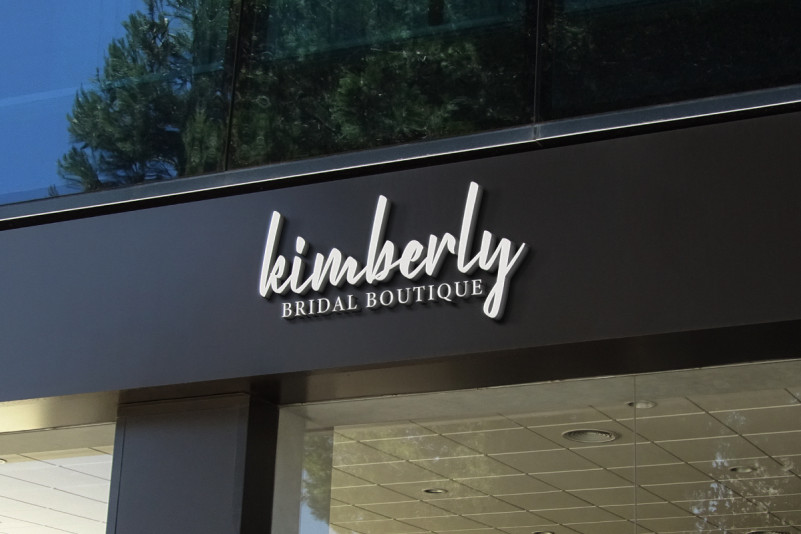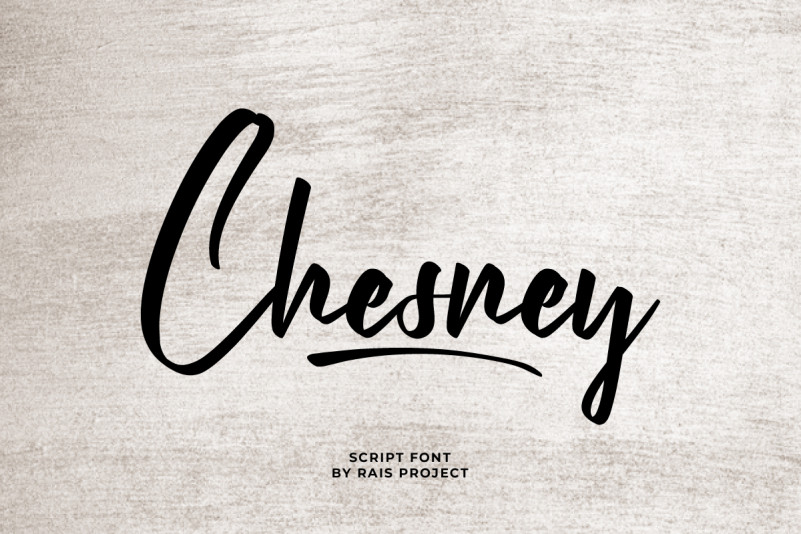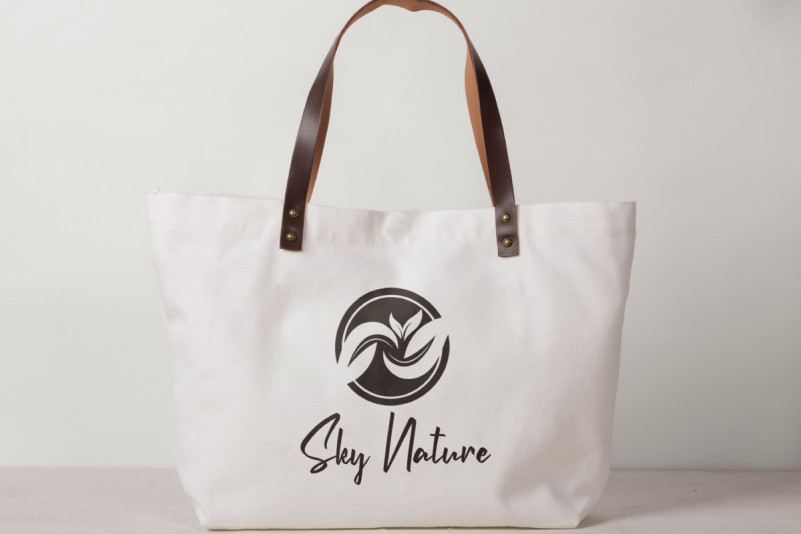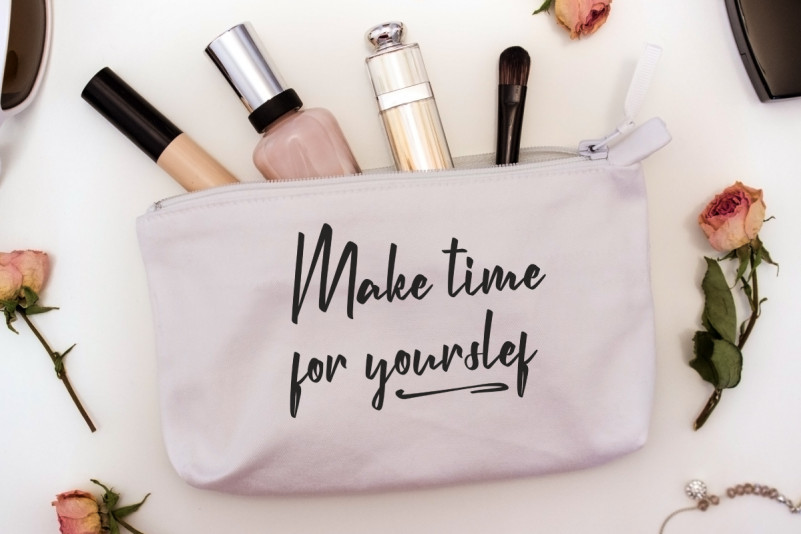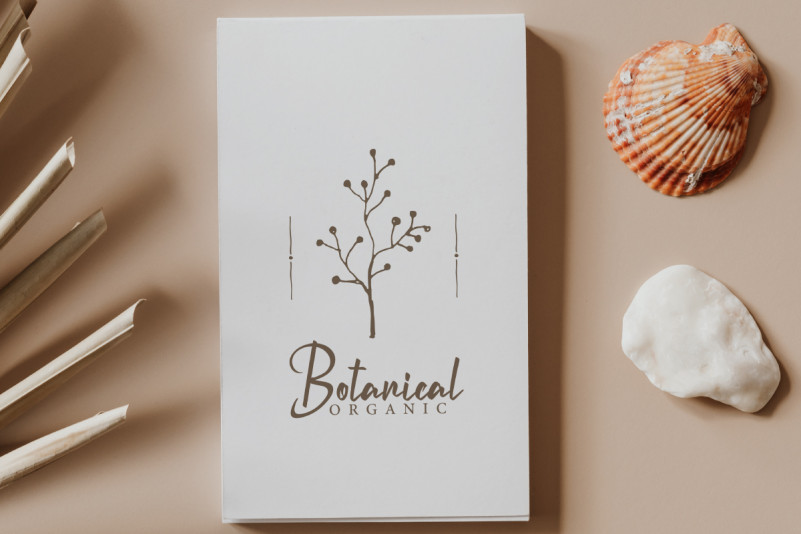
Chesney Font
Chesney Font is a handwriting calligraphy font – made by RaisProject. Chesney calligraphy Font has beautiful uppercase, lowercase letters, numerals, a range of punctuation and ligatures.